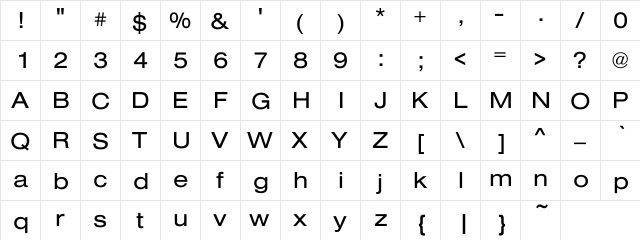
Addington Extended Regular
Design Context for Addington Extended Typeface
Addington Extended is a composed and adaptable typeface that performs quietly and consistently across a wide range of design contexts.